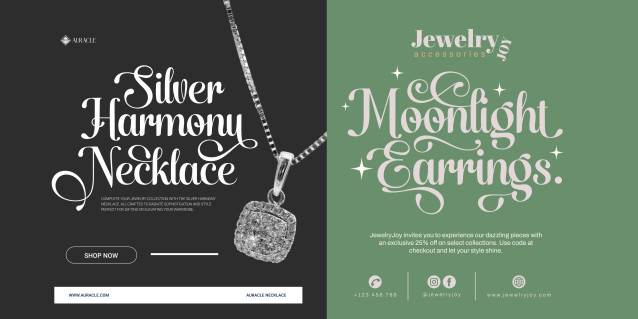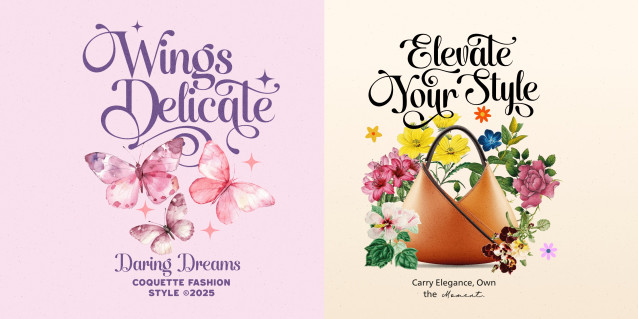
Santiole Script Font is a playful yet regal lettering style that flourishes with a sense of celebration. Each letter carries a whimsical twist at its terminals, reminiscent of theatrical scrolls or festive signage. With a high contrast between thick and thin strokes, it radiates a strong personality while retaining a smooth flow across words.
Use underscore _ to make a swash under any word.
Example: Rose_bud
Use multiple underscores to make different.
Example: Super______man
The font gives the impression of elegance laced with joy—perfect for making a statement that is both classy and spirited. Imagine a wedding invitation at a vintage carnival, or a boutique logo where tradition meets flair.
The font is built with advanced OpenType functionality and guaranteed top-notch quality, containing stylistic and contextual alternates, ligatures and more automatic and manual features; all to give you full control and customizability.